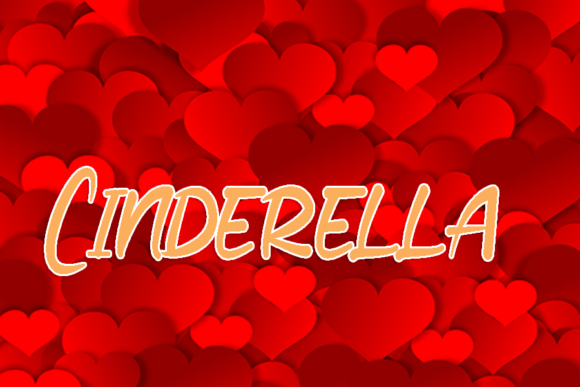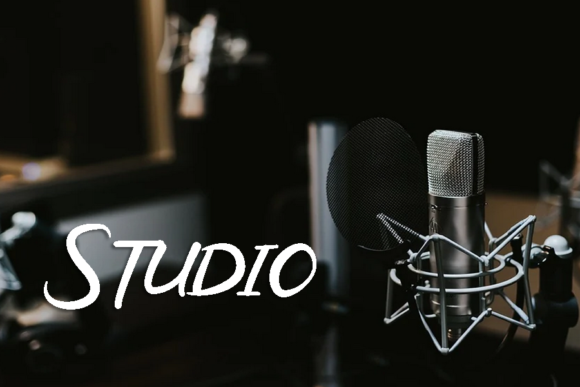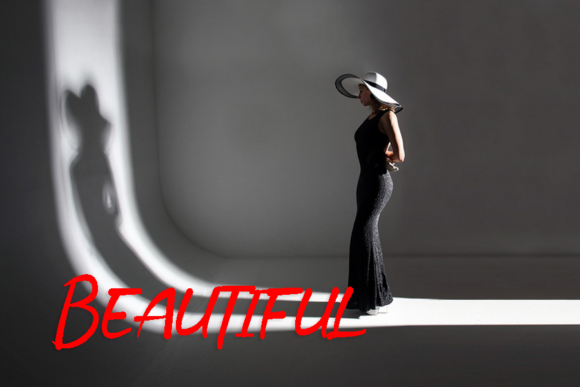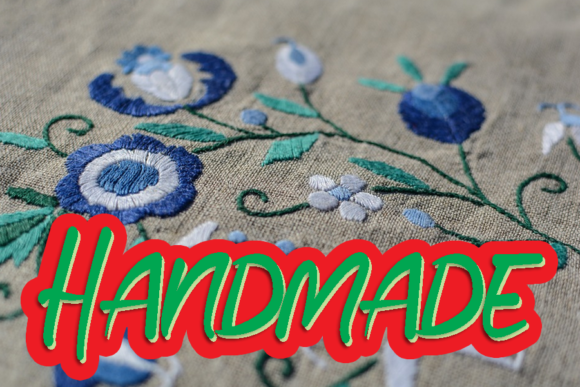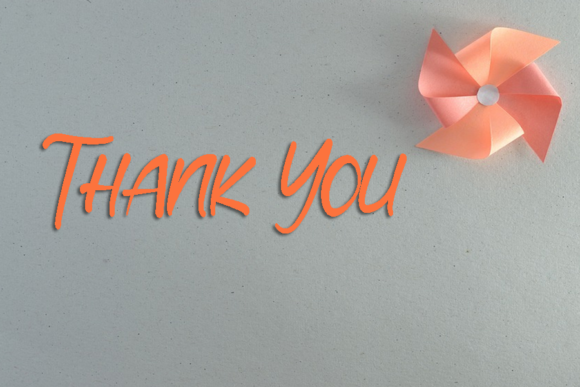
About Holidays Font
“Holidays” is a captivating handwritten font that exudes enchantment and charm. This versatile script font boasts a wide spectrum of applications, making it suitable for everything from greeting cards to headlines. It’s certain to infuse a romantic and whimsical touch into your upcoming project.
The font’s handwritten style brings a sense of personalization and warmth to your designs. Whether you’re creating greeting cards, designing headlines, crafting invitations, or working on other creative endeavors, “Holidays” has the ability to elevate your project with a touch of enchantment and emotion.
The font’s versatility is evident in its seamless adaptability to various design contexts. Its romantic feel can add an extra layer of sentimentality to a range of projects, making it a perfect choice for those seeking to evoke emotions through their designs. By incorporating “Holidays” into your project, you introduce an element of magic and visual appeal that resonates with viewers.
In summary, “Holidays” is more than just a font—it’s a creative tool that enhances your ideas with its enchanting handwritten style. Its versatility and capacity to evoke a romantic atmosphere make it a valuable asset for designers striving to create captivating and emotionally resonant designs that leave a lasting impression.